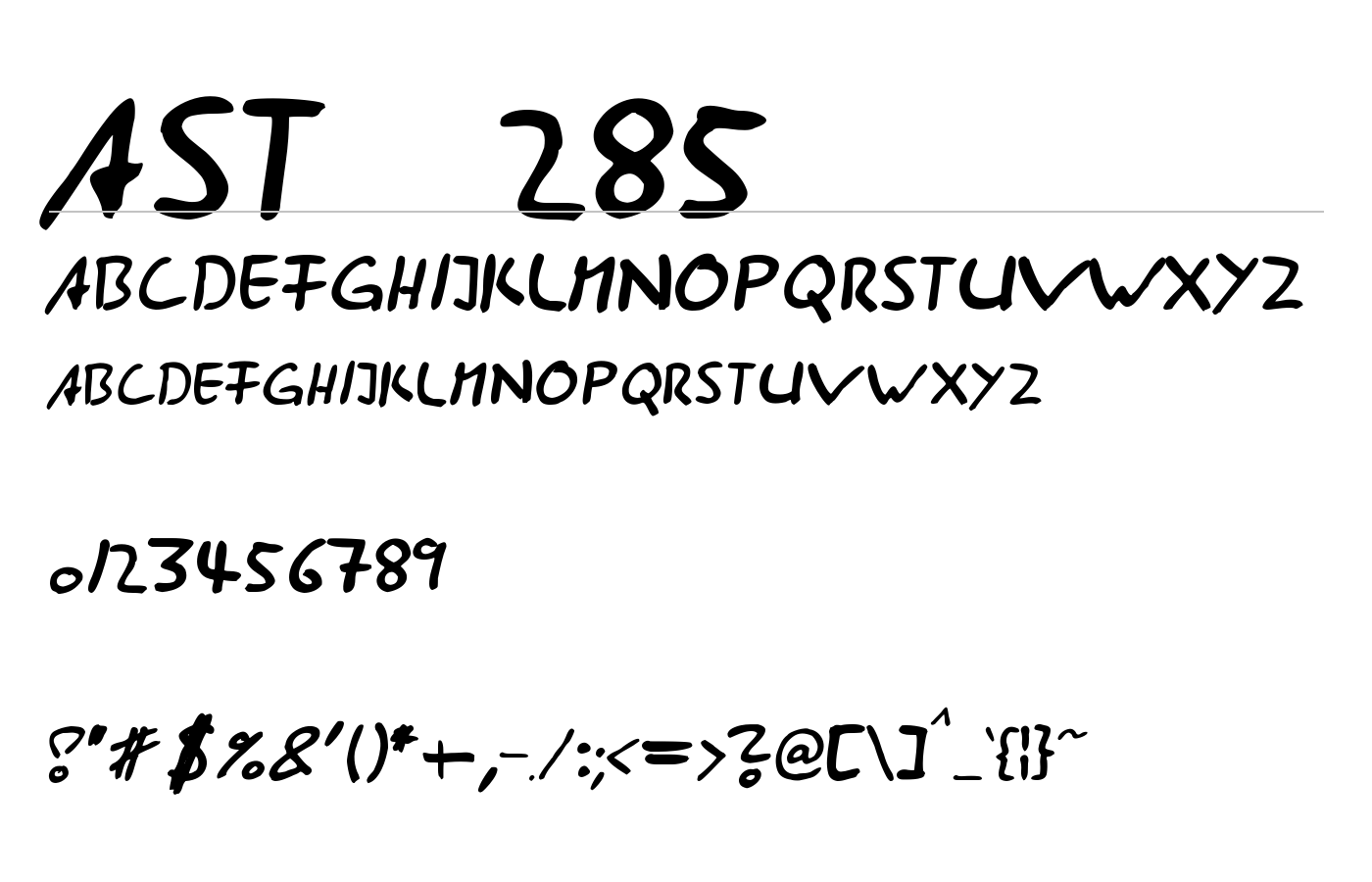
AST 285 is a casual, handwritten-style sans serif font with a playful and organic feel. Its irregular strokes and slightly uneven letterforms give it a lively, approachable personality, making it ideal for informal designs, creative projects, and branding that seeks a personal touch. This font works well in headlines, invitations, and packaging where a friendly and relaxed vibe is desired.
AST 285 Font